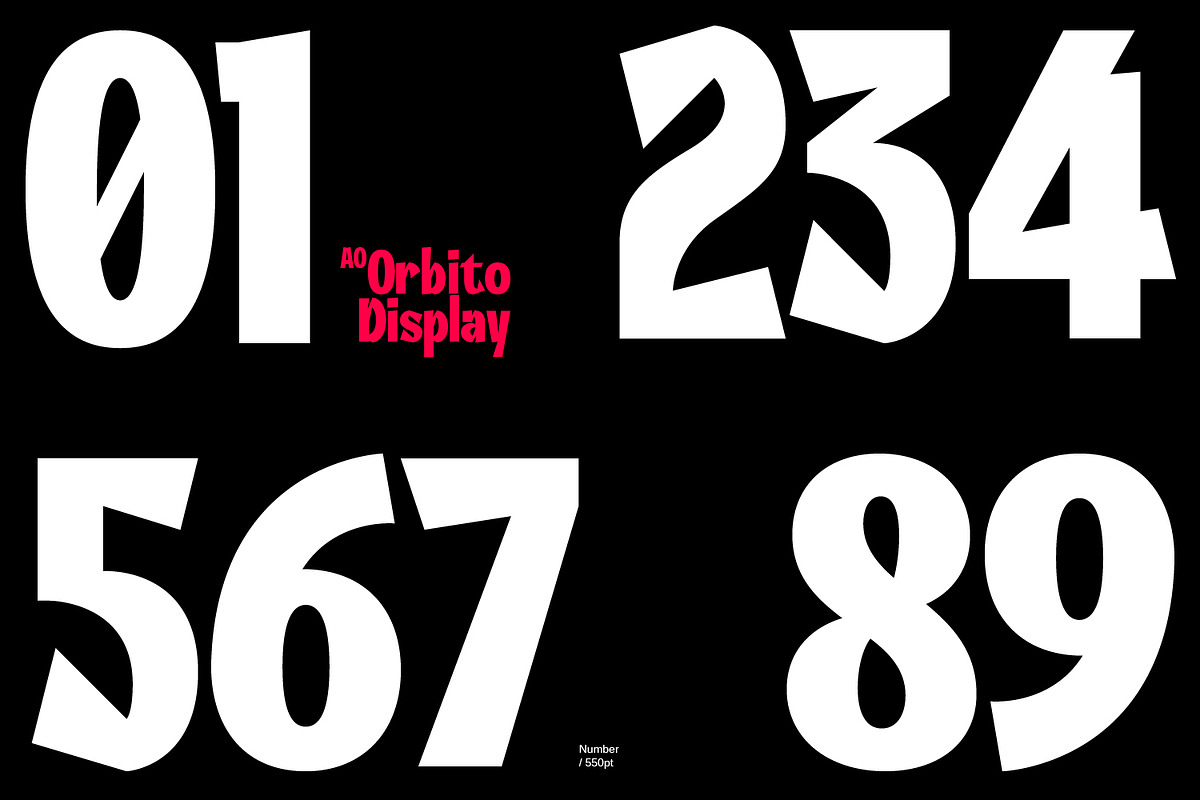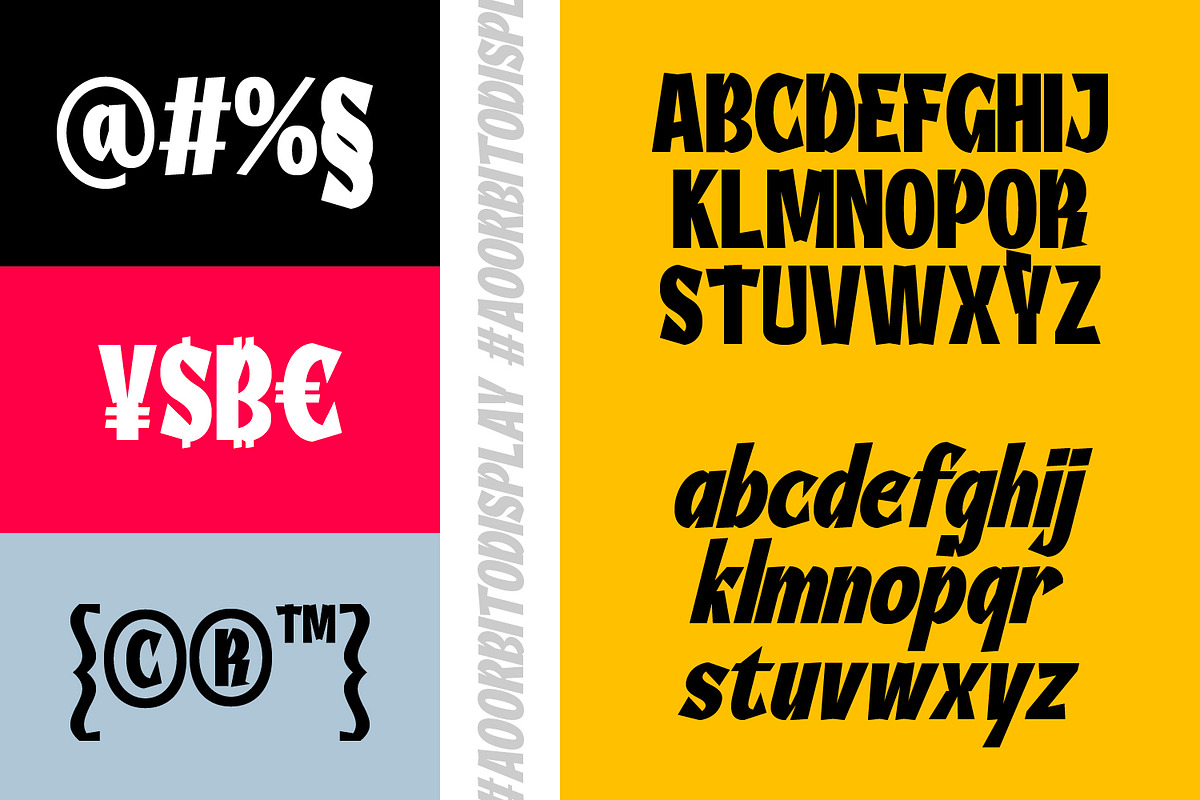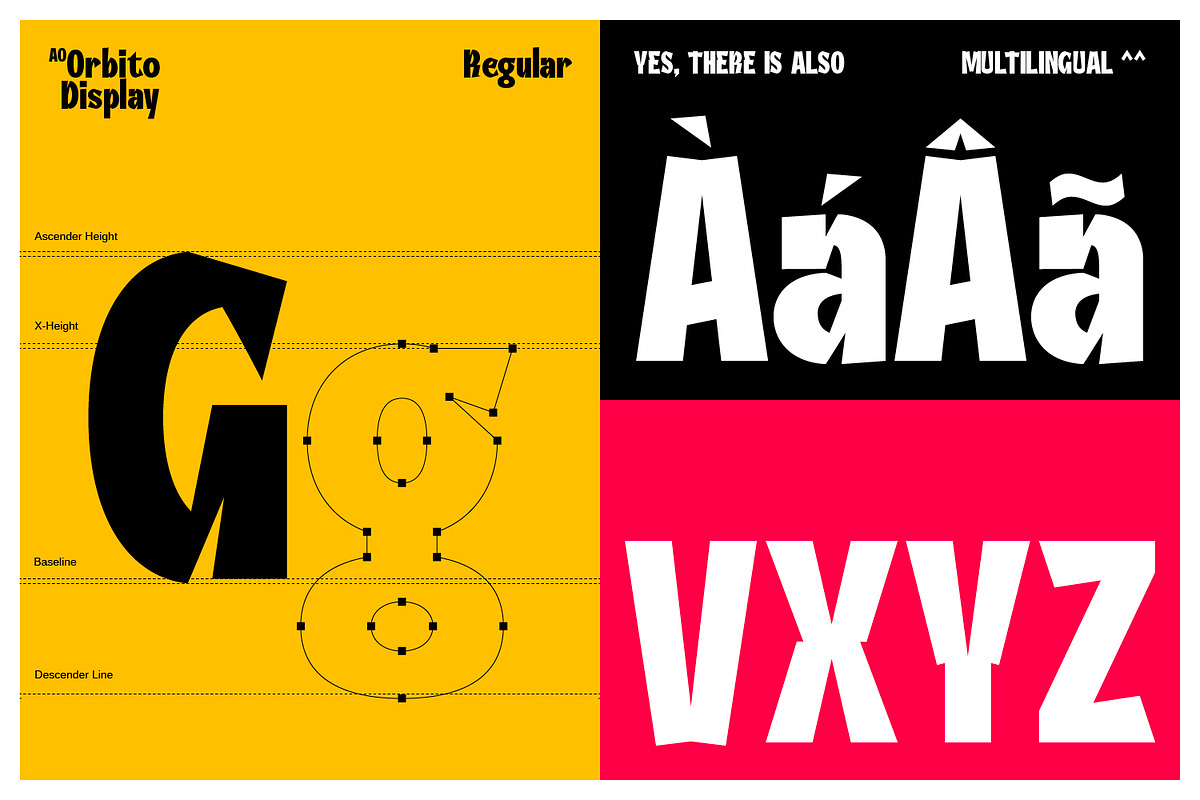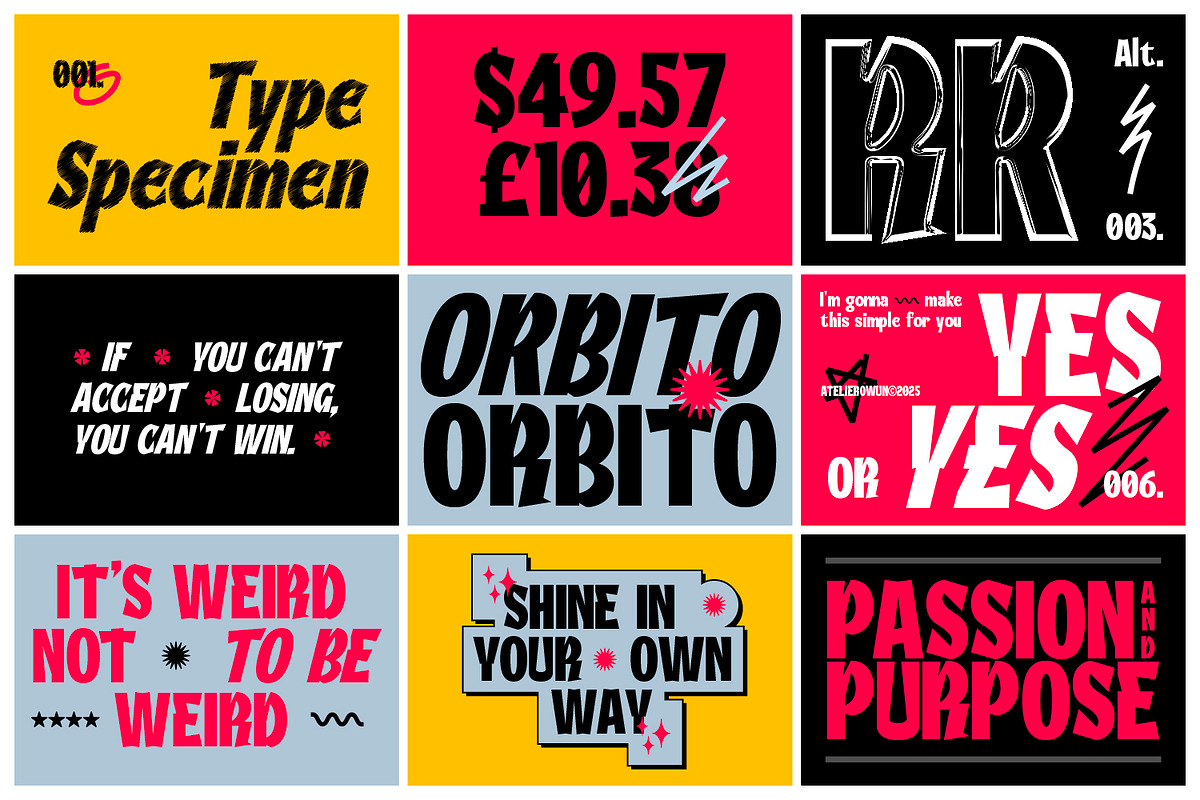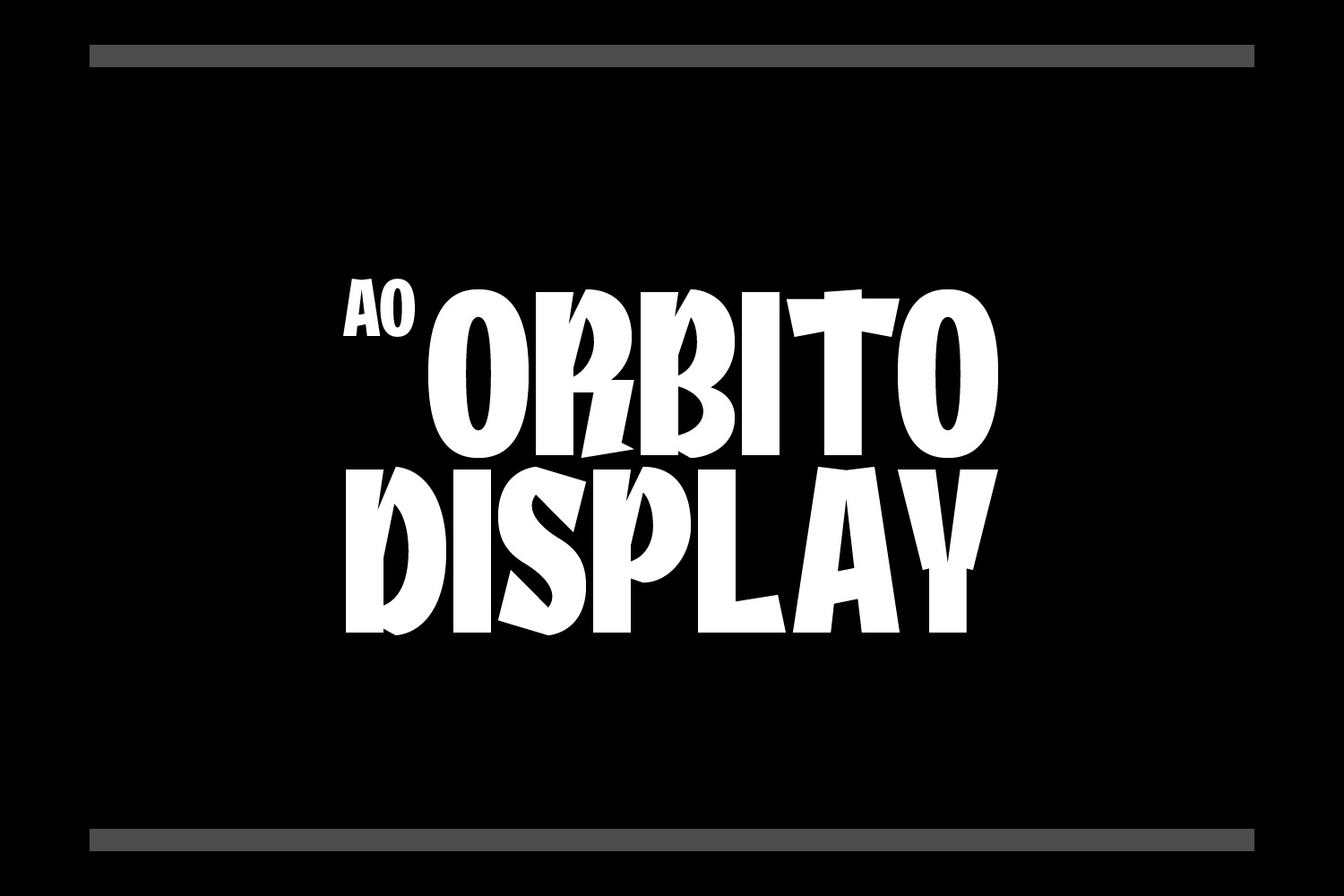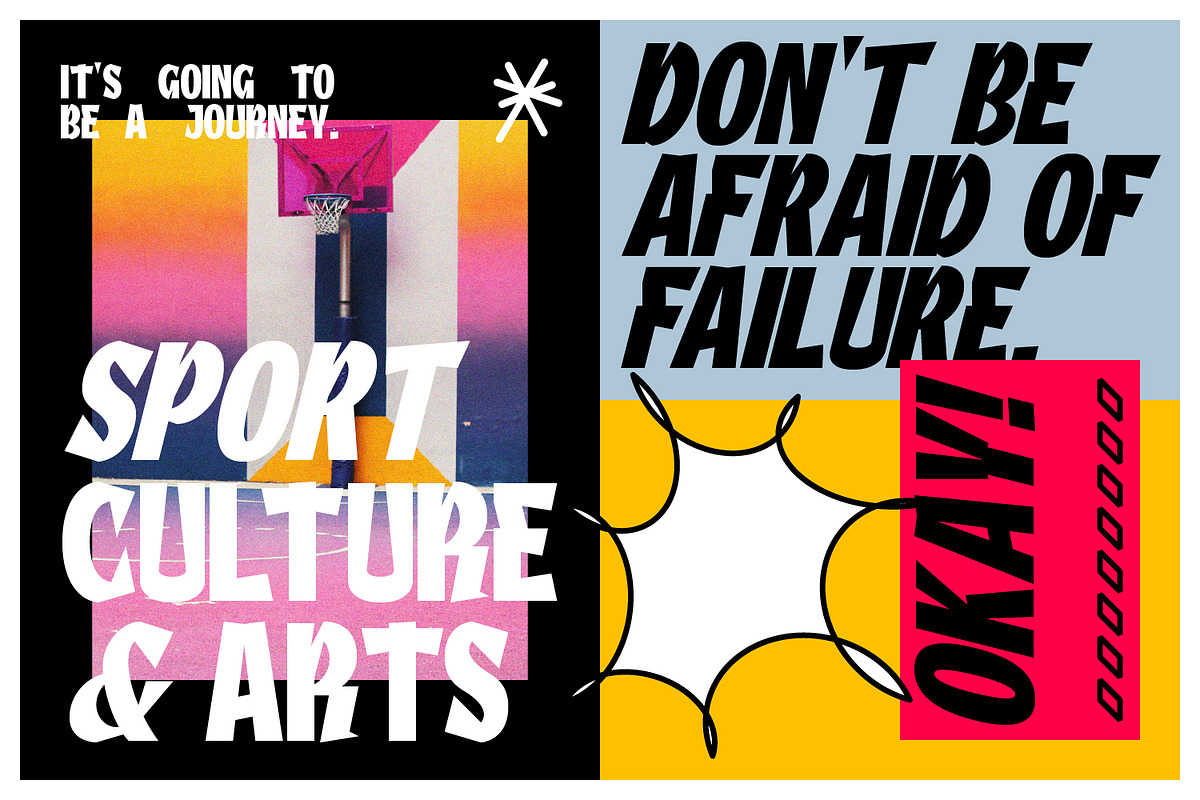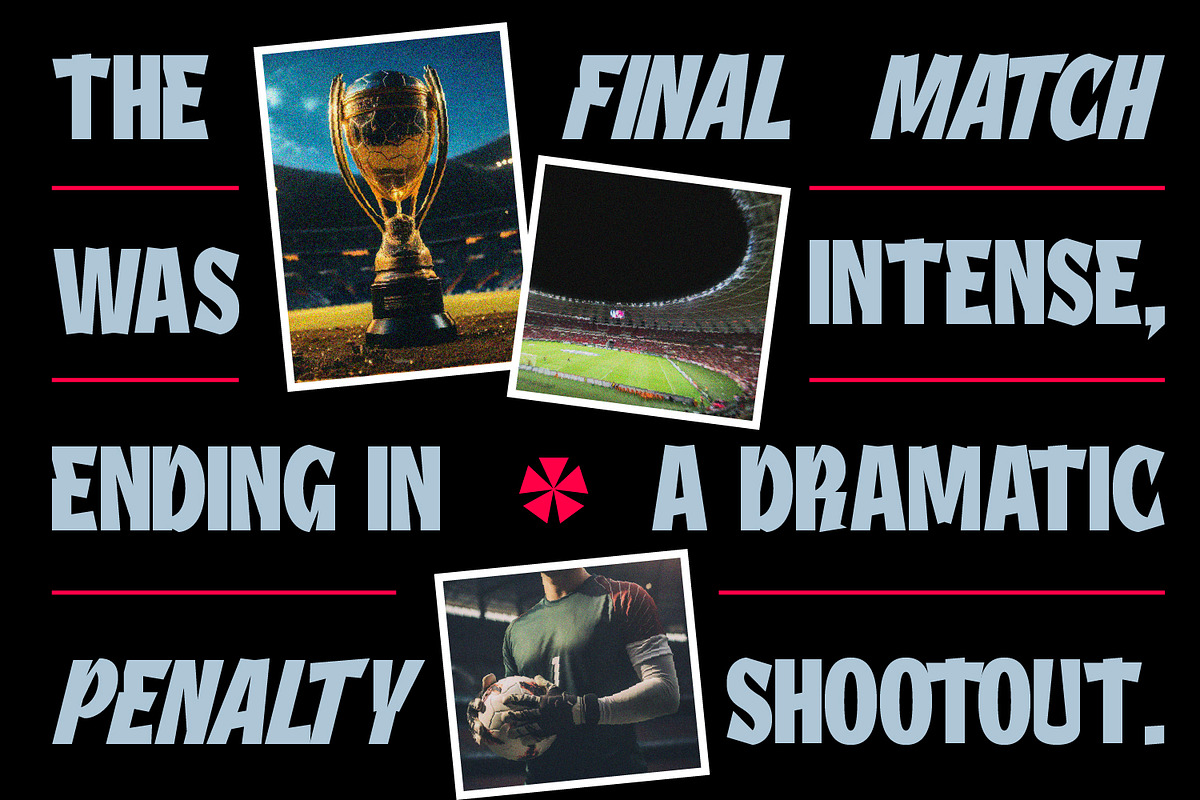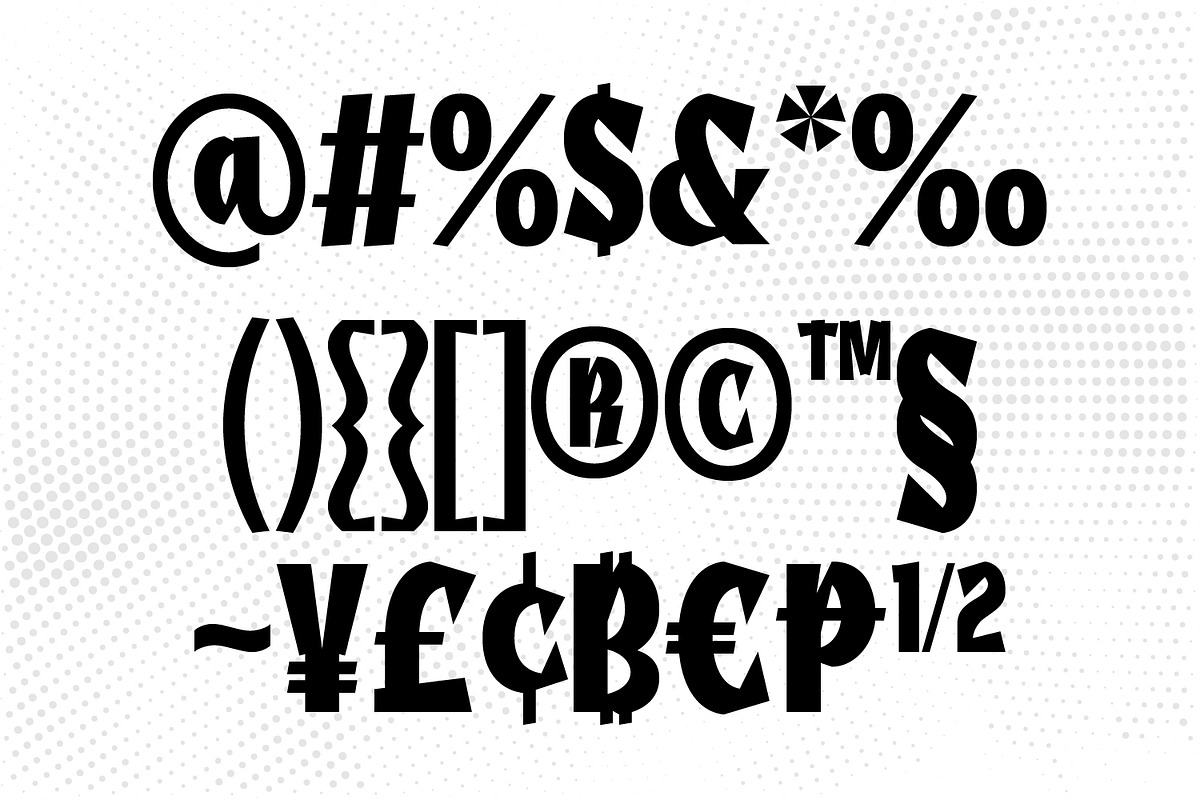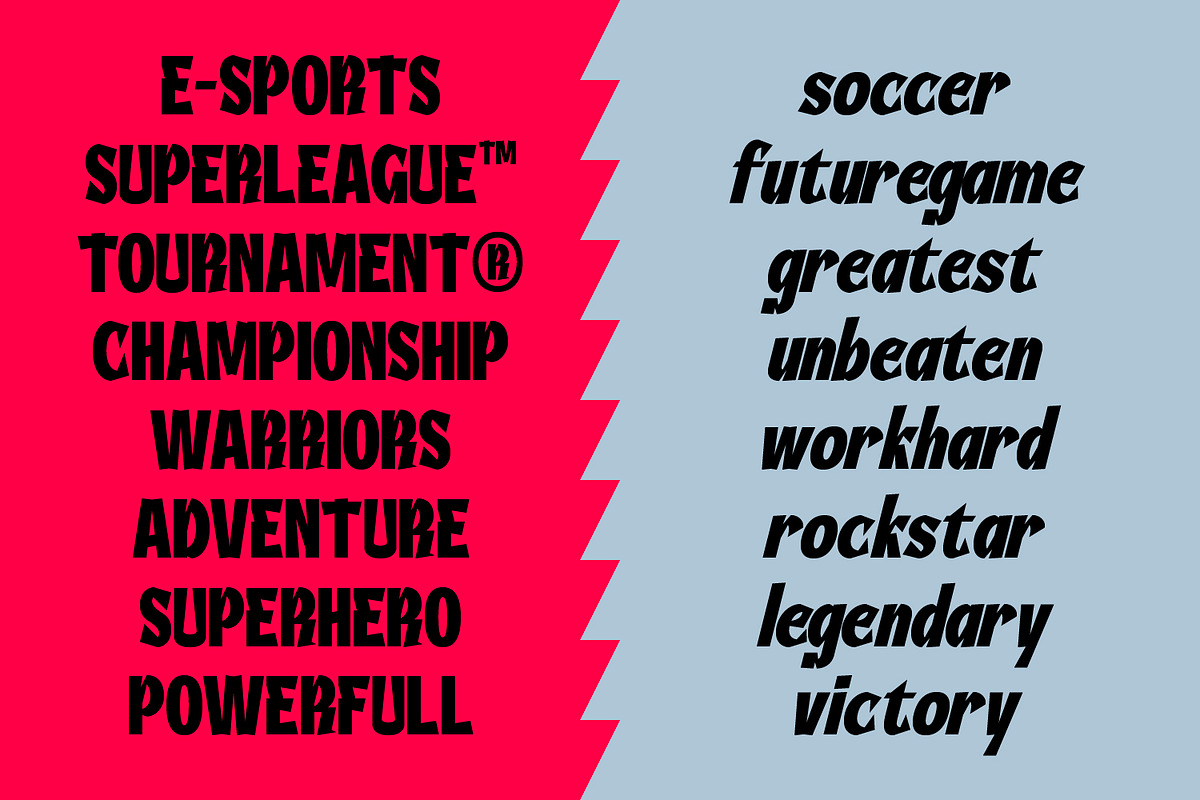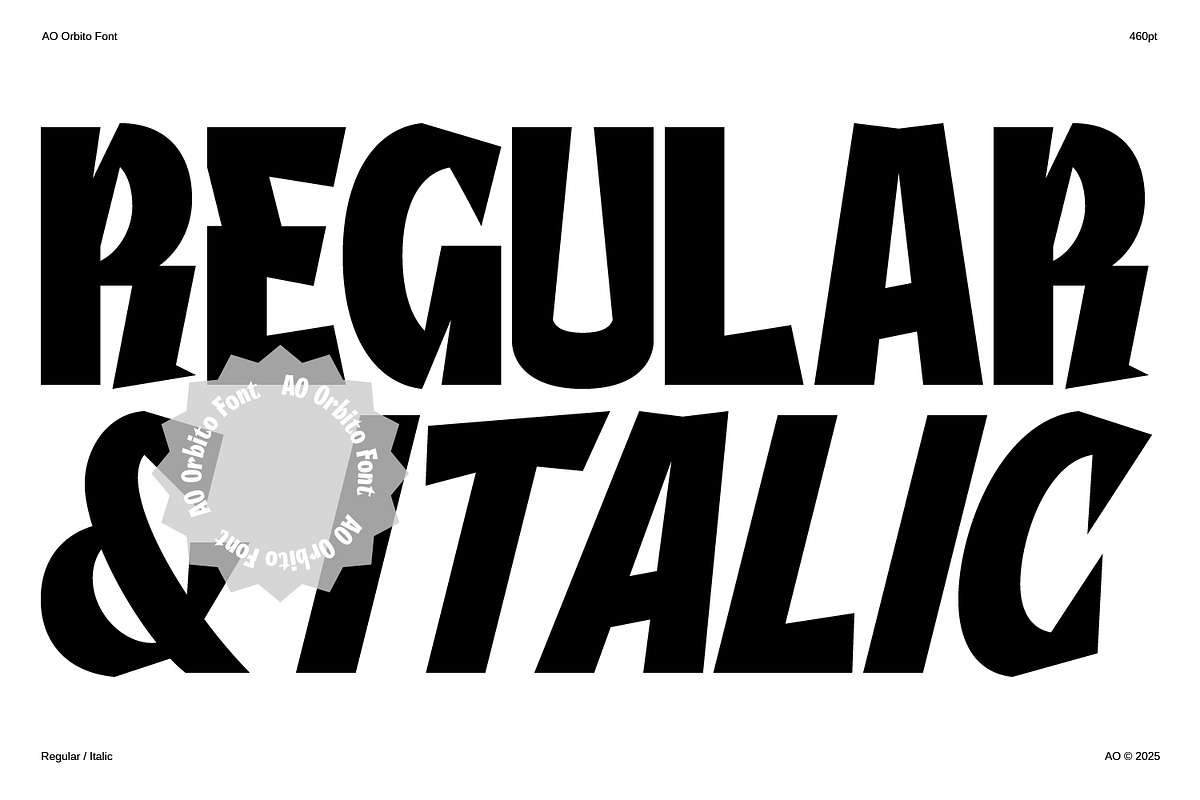
AO Orbito - Sporty Bold Font
AO Orbito font brings a strong, athletic presence with its thick, geometric forms and futuristic attitude. It looks fast, fierce, and built for action. 2 styles regular and italic perfect for sports branding, esports teams, or anything that needs to make a bold, high-impact statement